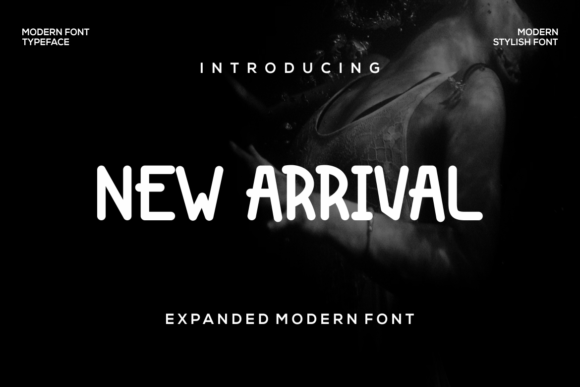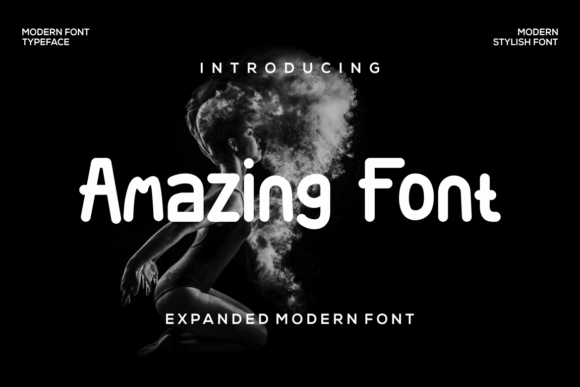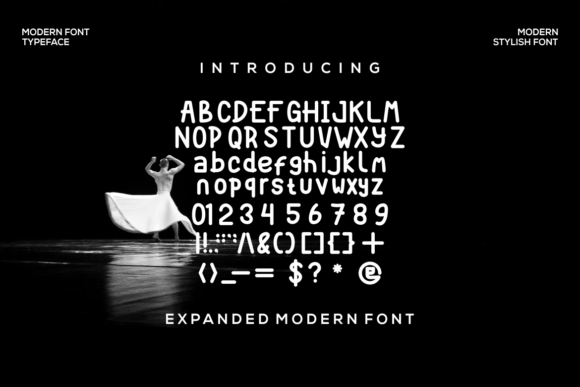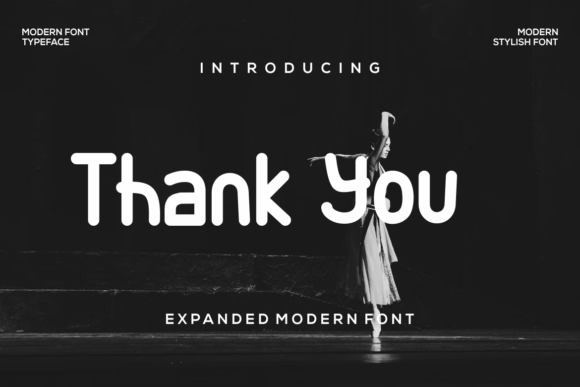
Introducing Gondang Font: Elevate Your Designs with a Modern and Bold Display Font
In the world of design, typography plays a crucial role in conveying messages, expressing creativity, and building brand identities. For designers, crafters, and entrepreneurs, finding the perfect font can be a game-changer. Today, we’re excited to introduce Gondang Font, a modern and bold display font designed to take your branding projects to the next level.
What is Gondang Font?
Gondang Font is a carefully crafted display font that exudes confidence, sophistication, and creativity. Its bold and authentic design makes it perfect for a wide range of applications, from logos and t-shirt printing to creative products and more. Whether you’re a designer looking for a unique font to showcase your skills or a business owner seeking to establish a strong brand identity, Gondang Font is an excellent choice.
Key Features of Gondang Font
- Bold and Authentic Design: Gondang Font boasts a bold and authentic design that commands attention and makes a lasting impression.
- Versatile: This font is versatile and can be used in a variety of contexts, from digital designs to print materials.
- Easy to Read: Despite its bold design, Gondang Font is easy to read, making it perfect for headlines, titles, and short paragraphs.
- Unique Character: Gondang Font has a unique character that sets it apart from other fonts, ensuring your designs stand out from the crowd.
Use Cases for Gondang Font
Gondang Font is an incredibly versatile font that can be used in a wide range of design projects, including:
- Logo Design: Create a bold and memorable logo that represents your brand’s personality and values.
- T-Shirt Printing: Design eye-catching t-shirts that make a statement with Gondang Font.
- Creative Products: Use Gondang Font to create unique and visually appealing designs for creative products, such as posters, flyers, and brochures.
- Branding and Advertising: Establish a strong brand identity with Gondang Font, perfect for branding and advertising materials.
Why Choose Gondang Font?
With so many fonts available, why choose Gondang Font? Here are just a few reasons:
- High-Quality Design: Gondang Font is designed with high-quality and attention to detail, ensuring it looks great in any design project.
- Time-Saving: With Gondang Font, you can save time and effort in finding the perfect font for your design project.
In conclusion, Gondang Font is an exceptional modern display font that can elevate your designs and help you establish a strong brand identity. Its bold and authentic design, versatility, and ease of use make it perfect for a wide range of design projects. Whether you’re a designer, crafter, or business owner, Gondang Font is an excellent addition to your typography collection.